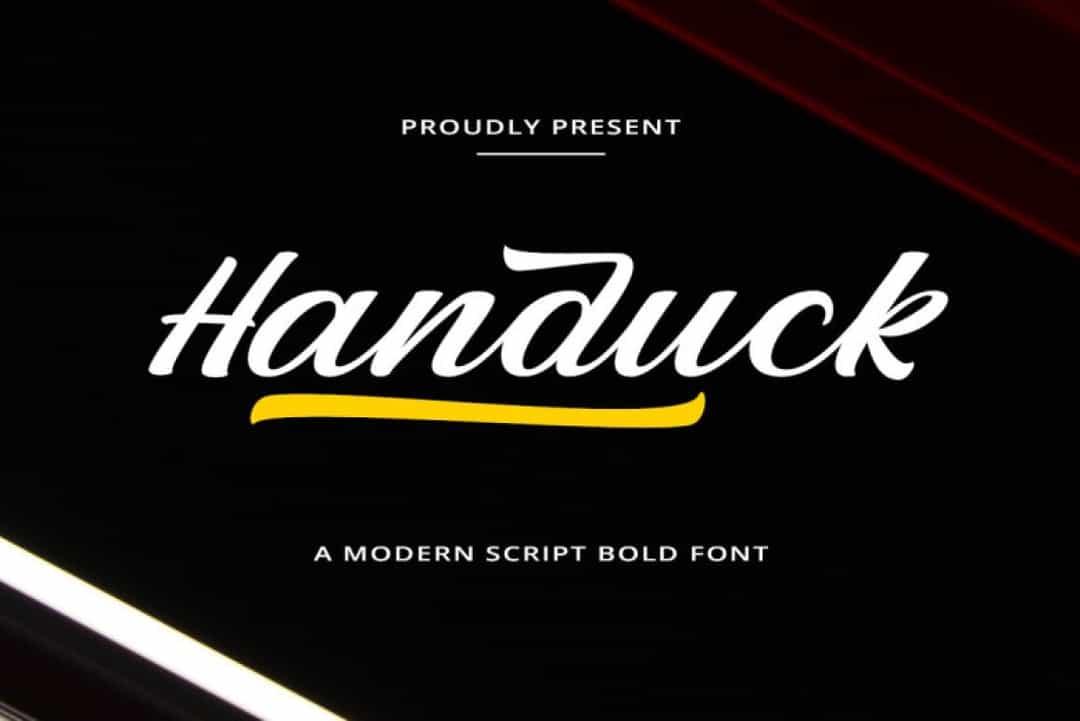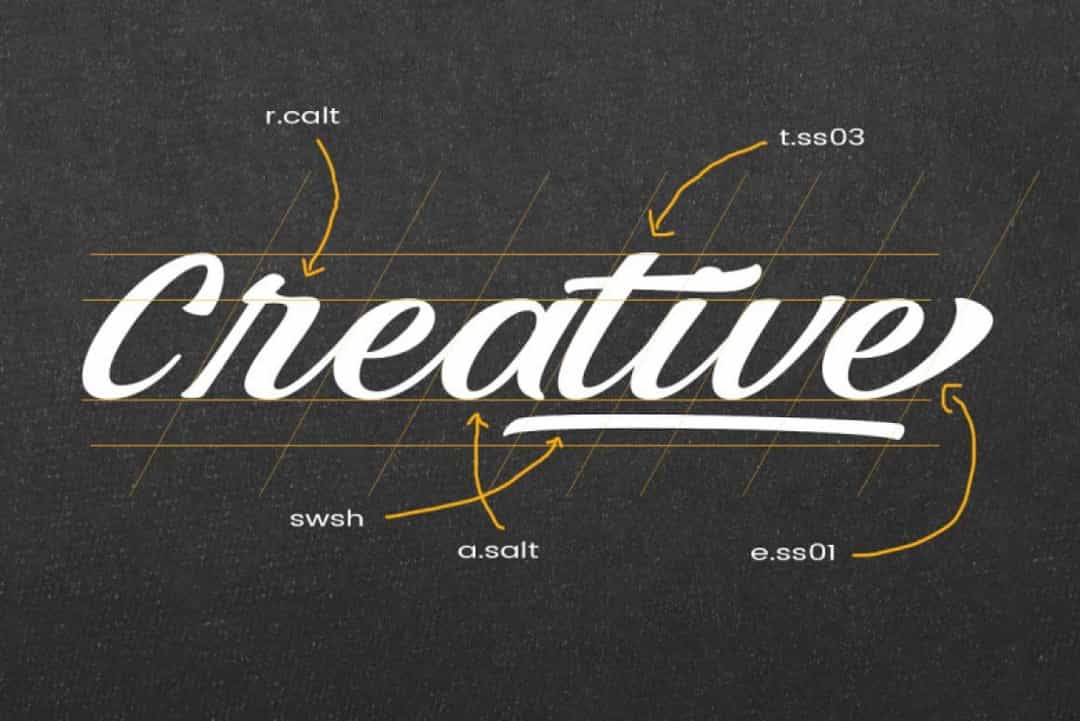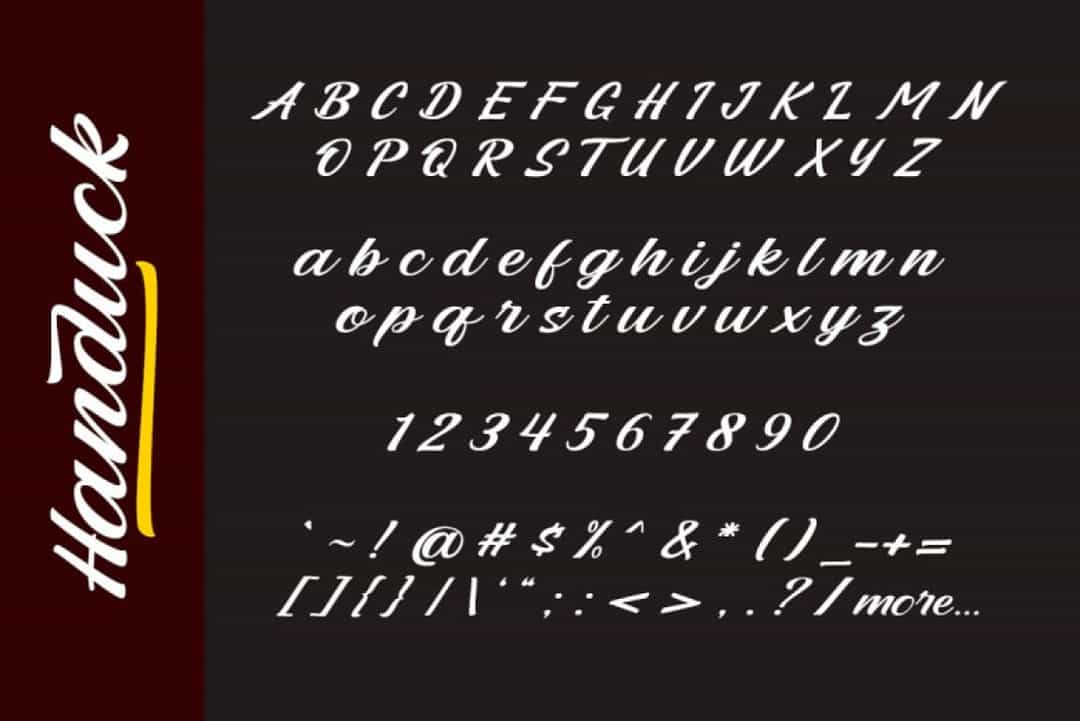
Handuck is an impressive handwritten font designed to add classy details to headlines or logotype projects. The font can be described as powerful energetic confident adding character and nostalgia.